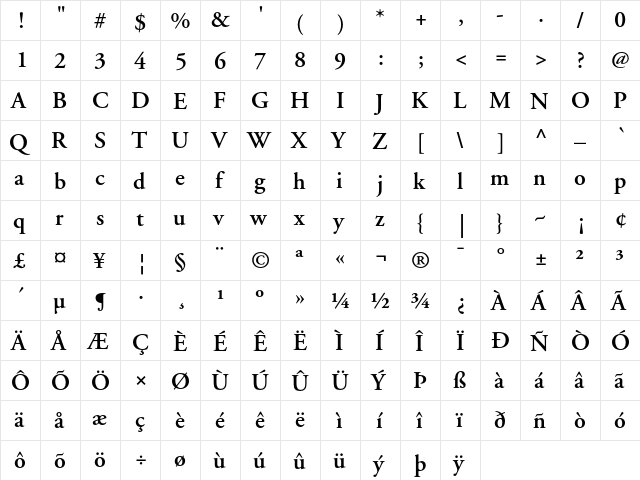
Adobe Garamond Semibold
Design Context for Adobe Garamond Typeface
Adobe Garamond offers clean, dependable letterforms without strong stylistic allegiance, making it a practical choice for designers who need flexibility. The heavy weight commands attention and anchors typographic hierarchies.
Pro Tip: Pair Adobe Garamond with a font of contrasting weight or personality to build a more expressive typographic hierarchy.